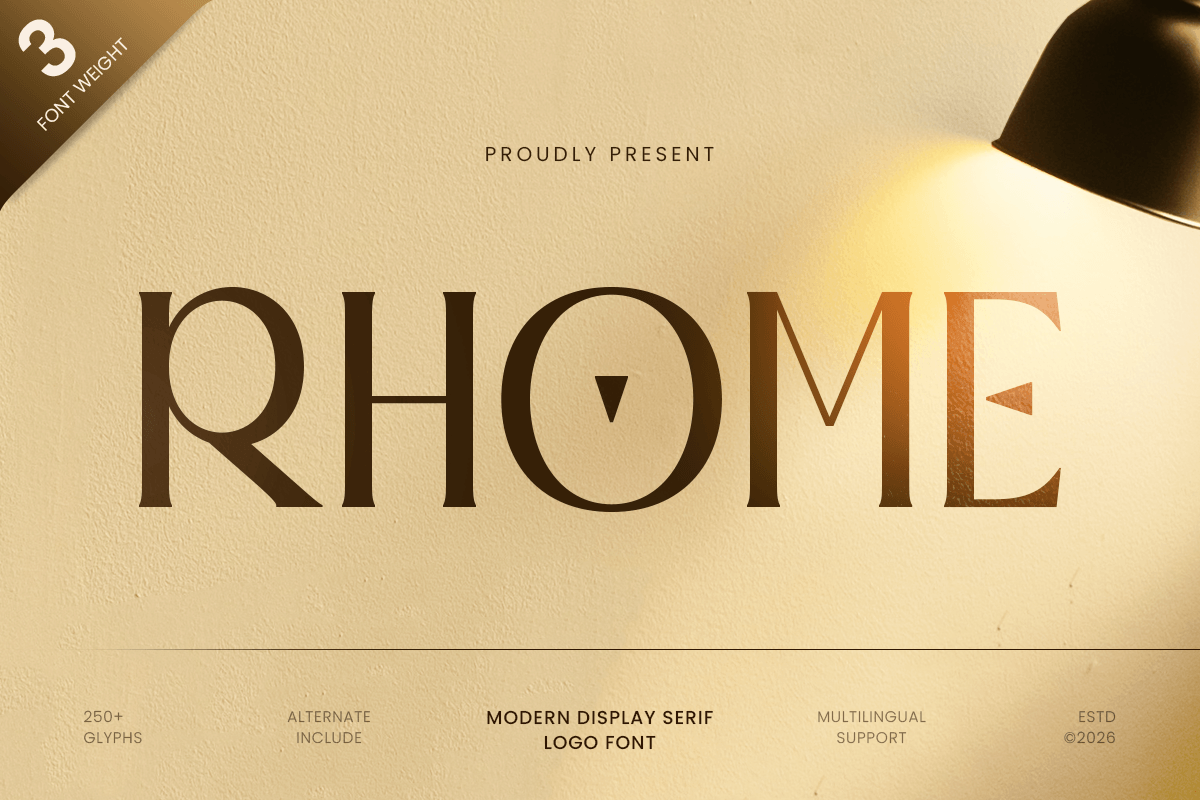
Rhome
-Modern Display Serif Logo Font
Rhome - Modern Display Serif Logo Font
RHOME is a modern display serif logo font designed to bring elegance, confidence, and refined visual character to premium design projects. With stylish serif details, balanced proportions, and a polished display presence, this typeface is perfect for luxury logos, editorial headlines, fashion branding, packaging, and sophisticated visual identities.
Crafted for designers who need typography with both impact and elegance, RHOME blends modern display aesthetics with timeless serif charm. Its distinctive letterforms create a memorable and upscale impression, making it ideal for boutique brands, beauty products, lifestyle labels, magazine titles, and premium marketing visuals.
Whether used as a logo mark, headline, invitation title, or packaging centerpiece, RHOME delivers clarity, elegance, and strong personality across both print and digital media.
RHOME – Modern Display Serif Logo Font Features
• Modern display serif design with elegant logo appeal
• Prepared with 3 weight inside: light, regular and bold
• Perfect for luxury branding, editorials, packaging, and premium identities
• Stylish serif details with refined visual proportions
• Ideal for fashion, beauty, lifestyle, boutique, and creative industries
• OpenType features for enhanced typographic styling